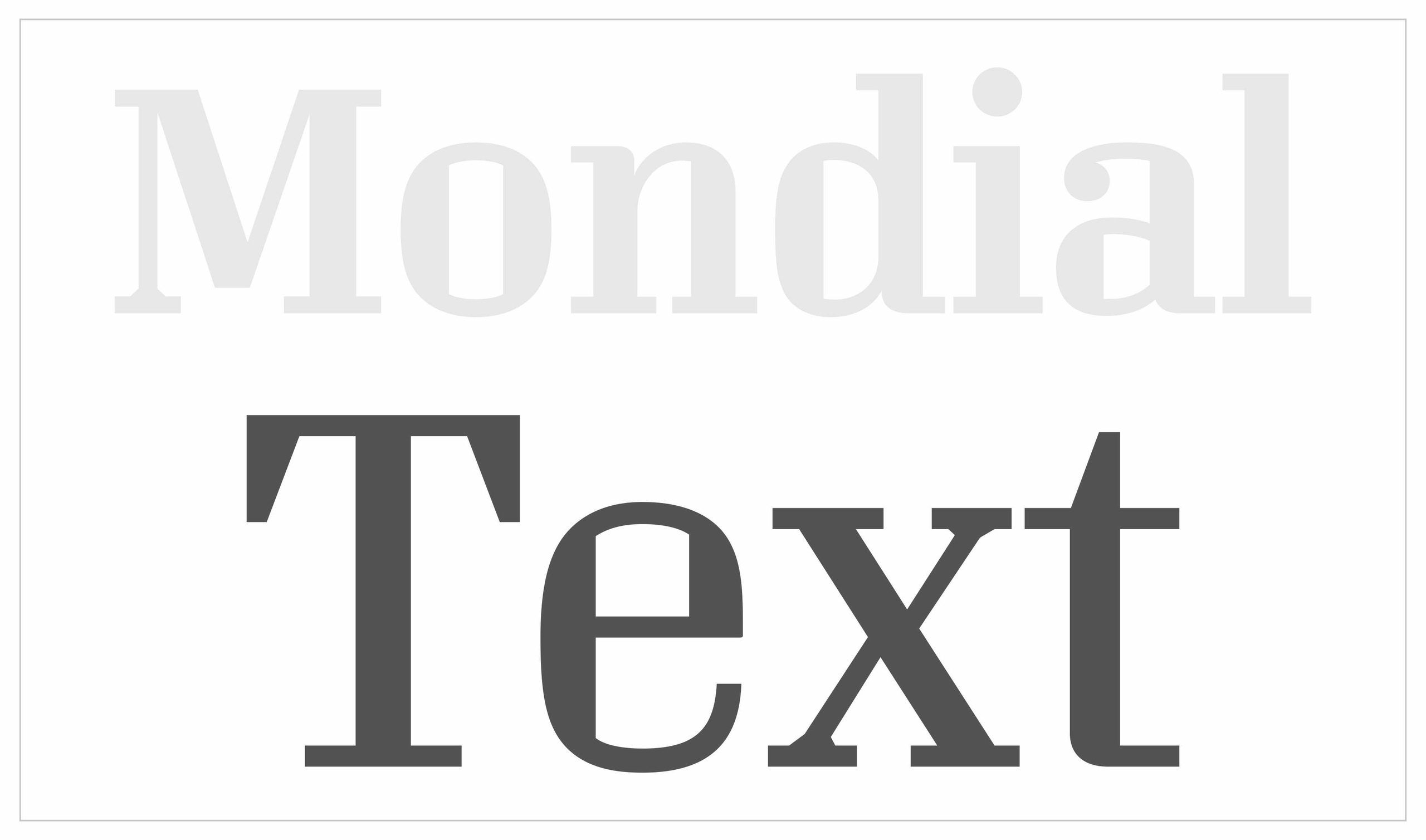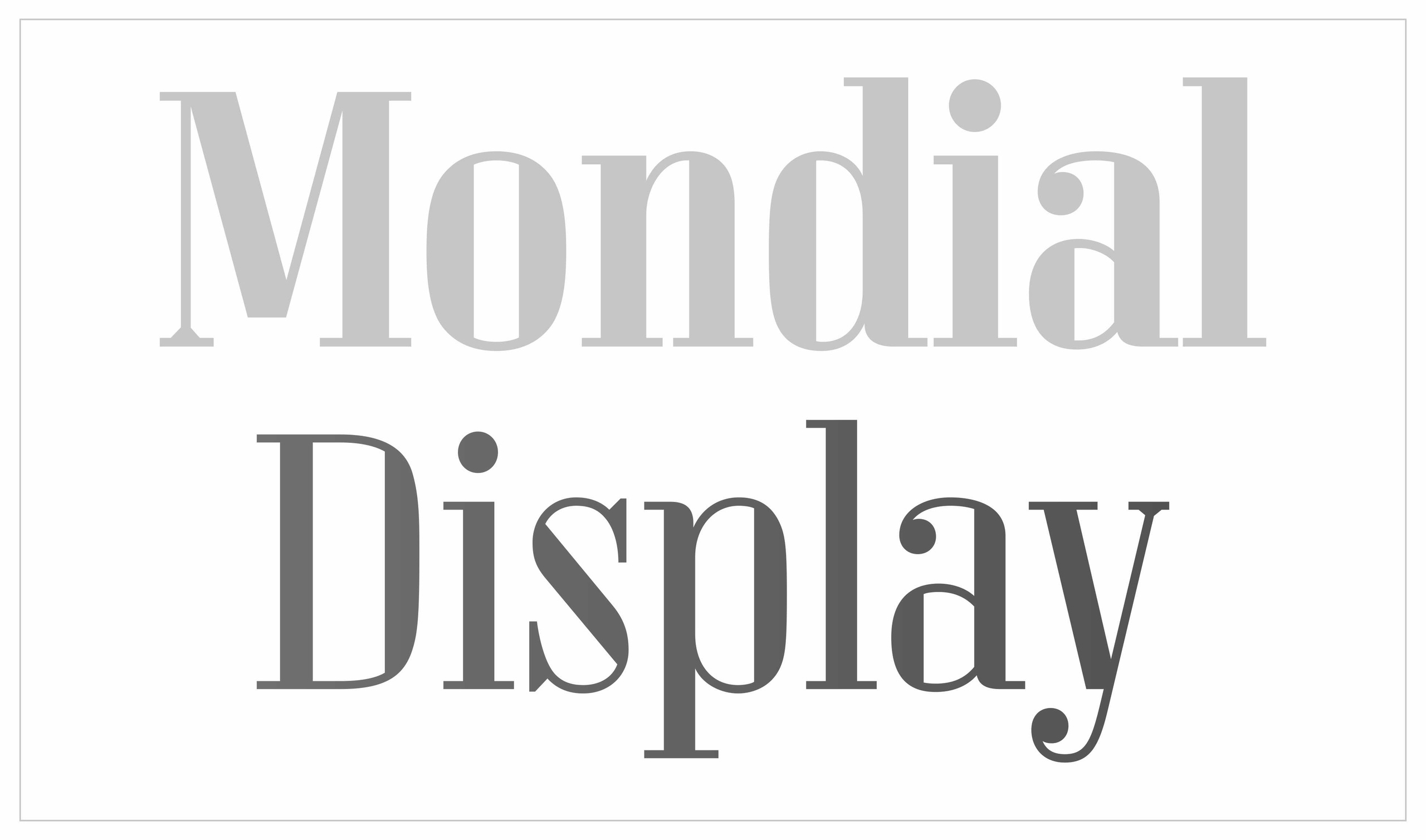
Mondial Font
Mondial Font is perfect for international business communications, global logistics companies, multinational corporation branding, embassy documentation, international conference materials, world trade organization publications, diplomatic correspondence, cross-cultural marketing campaigns, global consulting firms, and international development organizations. This universal typeface excels in applications where global reach, cultural neutrality, and international professionalism are fundamental requirements.
Mondial Font is exciting because it achieves perfect balance between cultural neutrality and distinctive character, creating a truly international typography solution that transcends linguistic and cultural boundaries. Its carefully engineered letterforms feature optimized proportions, systematic spacing, and universal readability that ensure consistent performance across diverse languages, writing systems, and cultural contexts. The font's diplomatic character conveys global authority while remaining accessible and welcoming to international audiences.
The Mondial Font family includes Regular, Bold, Light, Italic, Condensed, and Extended variations, each optimized for different international communication needs and global applications. The family features comprehensive multilingual support covering over 200 languages, extensive diacritical marks, and specialized symbols for international business and diplomatic communications. Advanced OpenType features provide contextual alternates, currency symbols, and refined spacing that optimize performance across global markets.
Professional designers and international communicators choose Mondial Font for its exceptional performance in multicultural environments and global business communications. The font's balanced construction eliminates cultural bias while enhancing cross-cultural comprehension and professional credibility. Its systematic approach makes it ideal for organizations requiring consistent, respectful, and effective communication across international markets and diverse cultural contexts.
The global excellence of Mondial Font transforms international communications with its universal clarity and diplomatic sophistication. Its culturally neutral character appeals to diverse global audiences while providing the professionalism and consistency required for serious international business and diplomatic communications.